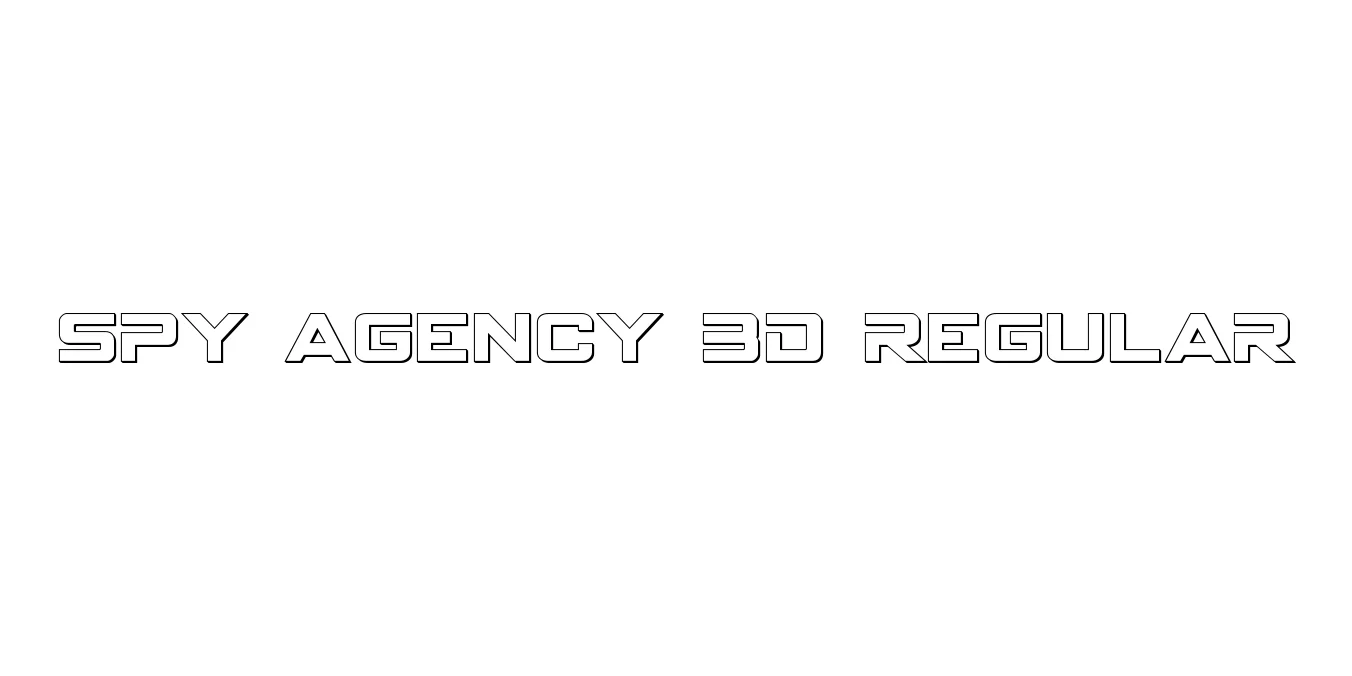
Spy Agency 3D Regular
Designed by Iconian Fonts (Dan Zadorozny)
| Category | Techno / Sci-Fi |
Spy Agency 3D Regular is a prominent member of the expansive Spy Agency font family created by Iconian Fonts. This typeface is characterized by its bold, geometric structure and a distinctive three-dimensional perspective that evokes a sense of depth and modern technology. It was designed to capture the high-stakes aesthetic of espionage and futuristic interfaces, making it a staple for projects requiring a powerful, high-impact presence.
The design features wide, blocky letterforms with clean lines and sharp angles, optimized for visibility in large formats. Its 3D effect adds a layer of sophistication and dynamism, often seen in gaming logos, movie titles, and high-tech branding. As part of a larger family with various weights and styles, the 3D Regular variant remains a popular choice for designers seeking a balance between retro-futurism and contemporary digital design.
Spy Agency 3D Regular Best Uses
Perfect for tech startups and gaming brands looking for a strong, impactful identity.
Ideal for UI/UX elements, title screens, and in-game digital environments.
High-impact display text for science fiction, action movies, or event promotions.
Creating a futuristic and bold corporate or personal brand image that stands out.